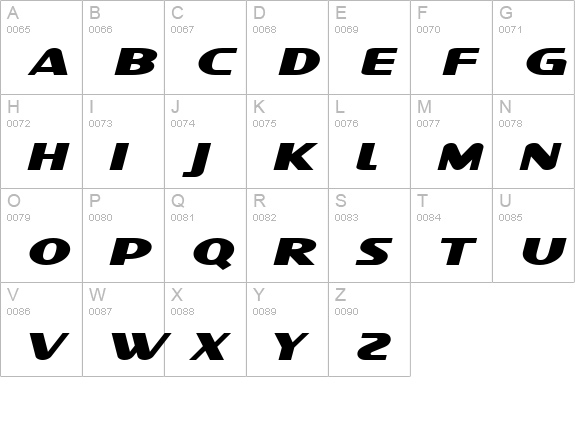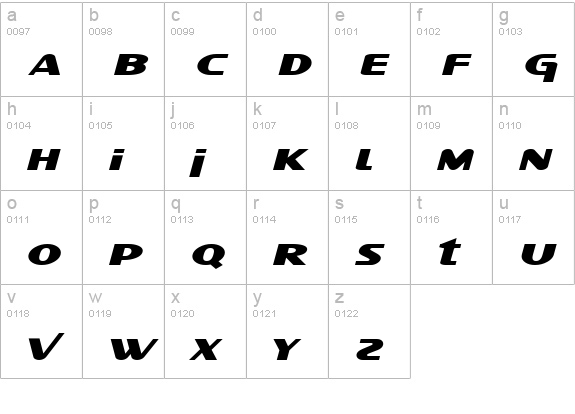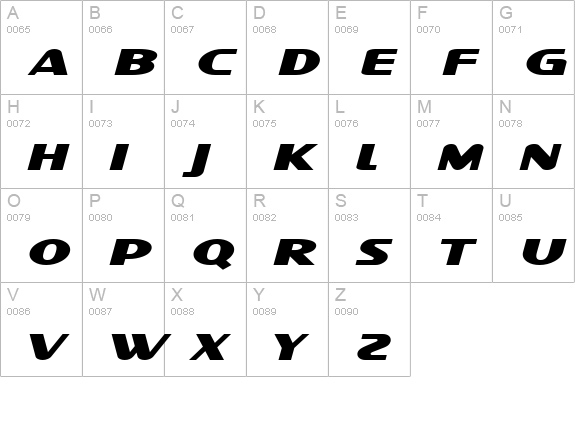
SF Intellivised Extended Italic is a distinctive, extended-width, italic variant in the SF typeface family \xE2\x80\x94 well suited to design and typography projects.
SF Intellivised Extended Italic is a modern and sleek typeface that effortlessly combines futuristic aesthetics with a touch of elegance. This font is perfect for projects that require a bold and impactful look, while still maintaining a sense of sophistication. With its extended and italicized letterforms, SF Intellivised Extended Italic exudes a sense of forward-thinking and innovation. Designed with meticulous attention to detail, this font offers a wide range of characters that are both visually striking and highly legible. The extended proportions give each letter a commanding presence, making it ideal for headlines, logos, and other attention-grabbing elements. What sets SF Intellivised Extended Italic apart is not just its stunning design, but also the fact that it is available for free. That's right, you can freely download this remarkable font at FontsMarket.com. Whether you are a professional designer, a student, or simply someone who appreciates high-quality typography, SF Intellivised Extended Italic is a valuable addition to your font library. With its freely available download, SF Intellivised Extended Italic offers accessibility and versatility to a wide range of users. From creating eye-catching posters to designing captivating websites, this font provides endless creative possibilities. In conclusion, SF Intellivised Extended Italic is a font that seamlessly blends contemporary style with timeless sophistication. Its extended and italicized letterforms make a bold statement, while its availability for free ensures that everyone can enjoy its striking design. Download SF Intellivised Extended Italic today from FontsMarket.com and elevate your designs to new heights.